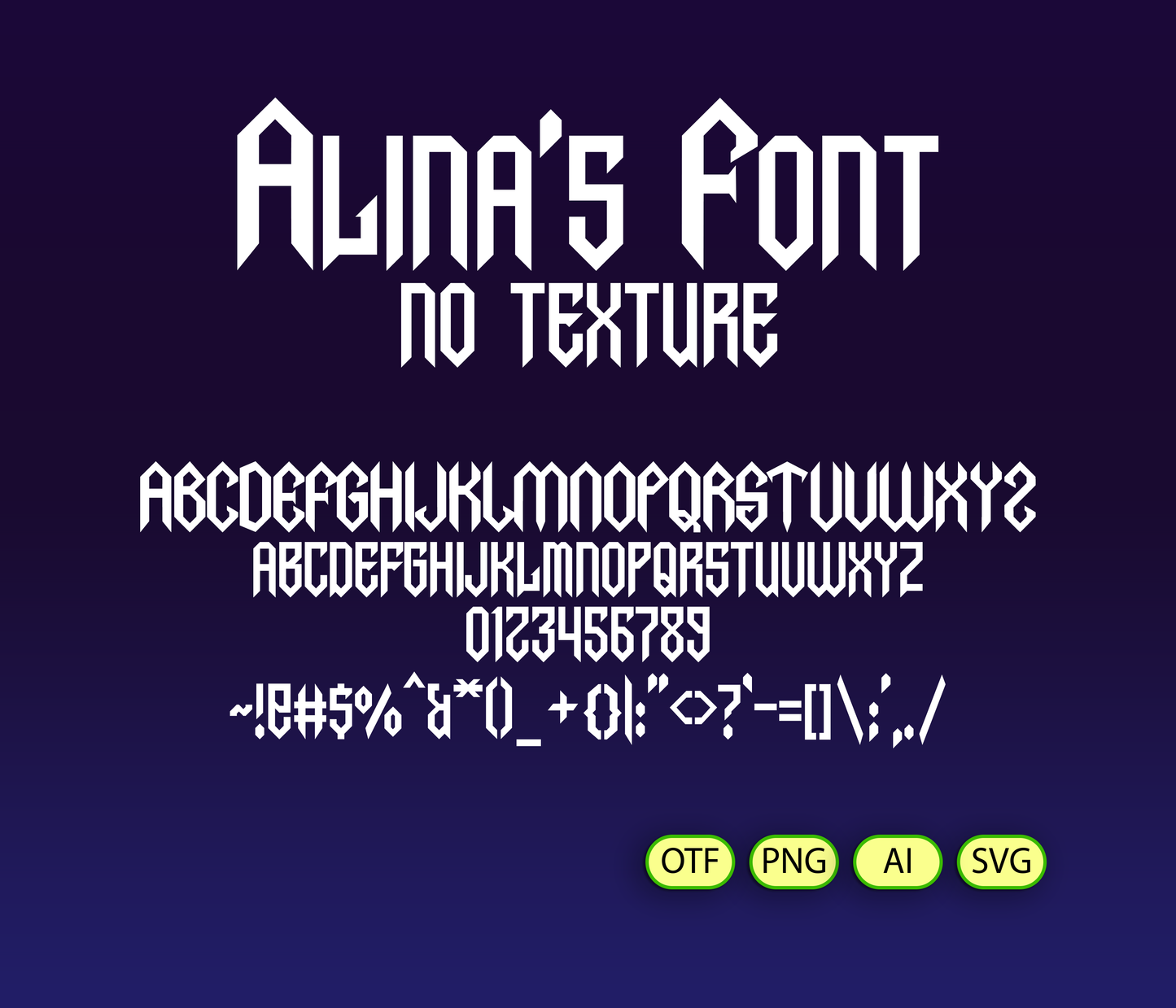
Ancient Mystique with Stone Guardians Font
Unleash Ancient Mystique with Stone Guardians Font
Step into the dark, captivating world with our Stone Guardians font, inspired by a beloved animated series. Perfect for fans, event planners, and designers, this font brings the gothic, legendary spirit to your projects. Create event invitations, themed merchandise, or digital content with the epic and mystical nature of this series.
Our Stone Guardians font features bold, sharp lines and intricate gothic details, reflecting the strength and elegance of the stone protectors. Ideal for:
- Event Invitations: Captivating invites for themed parties, gothic events, fan gatherings.
- Merchandise Design: T-shirts, posters, accessories capturing the essence of the stone protectors.
- Digital Media: Enhance websites, blogs, social media with striking headers and graphics.
- Educational Materials: Presentations, worksheets, content focused on mythology, storytelling, gothic architecture. Personal Projects: Add ancient mystique to scrapbooking, DIY crafts, home decor inspired by legendary guardians.